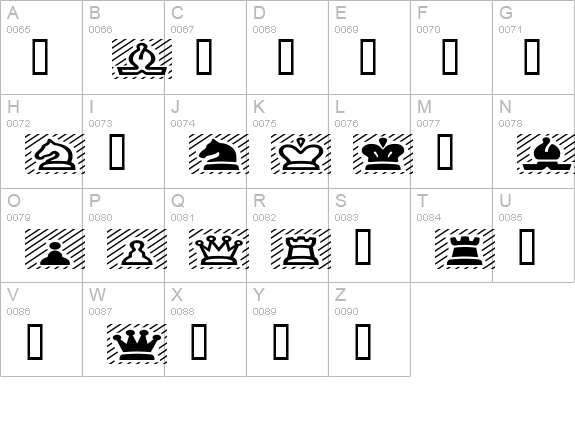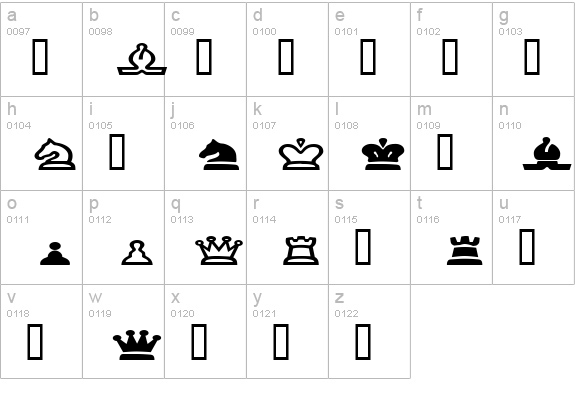
ChessPiece Extended is a distinctive, extended-width variant in the ChessPiece typeface family \xE2\x80\x94 well suited to design and typography projects.
ChessPiece Extended font is a visually striking and elegant typeface perfect for adding a touch of sophistication to your designs. Its intricate details and sharp angles make it stand out in any project, while its extended form gives it a modern and sleek appearance. This font is ideal for creating eye-catching headlines, signage, logos, and more. And the best part? ChessPiece Extended font is available for free download at FontsMarket.com. Don't miss out on the opportunity to elevate your designs with this unique and versatile typeface. Download it today and start creating stunning visuals that will leave a lasting impression.